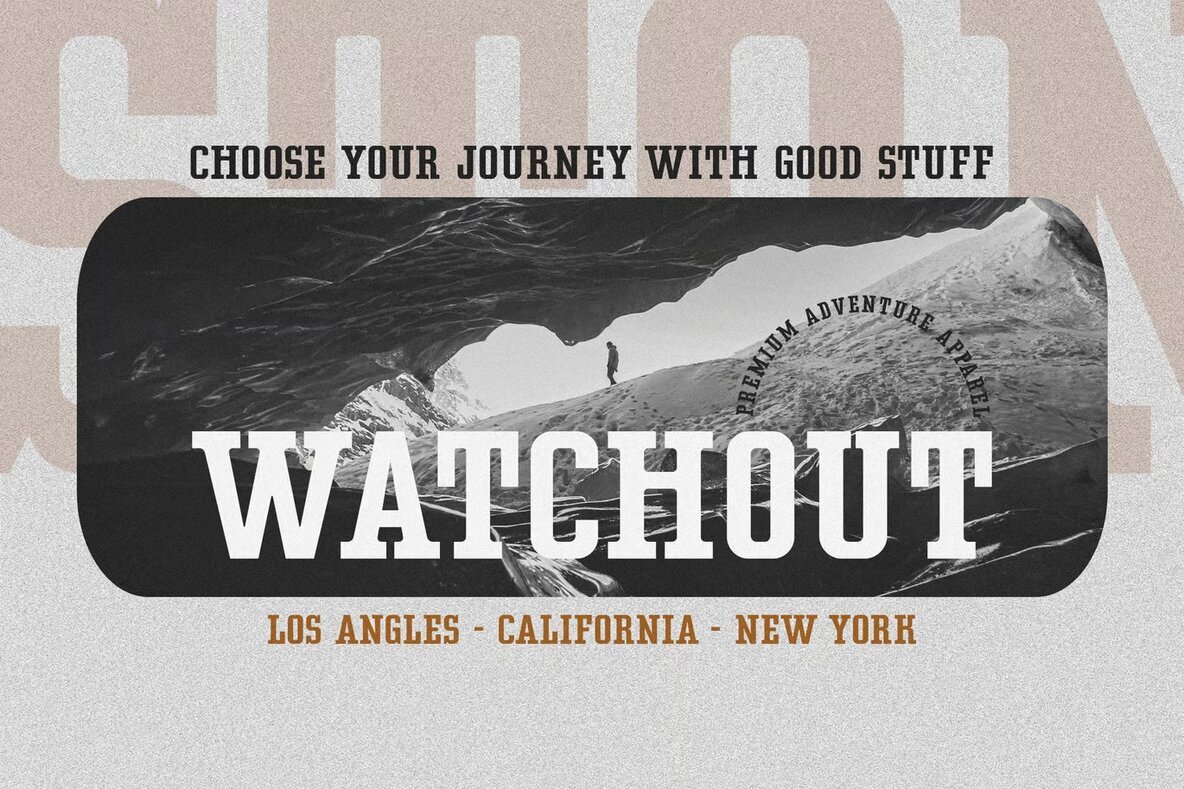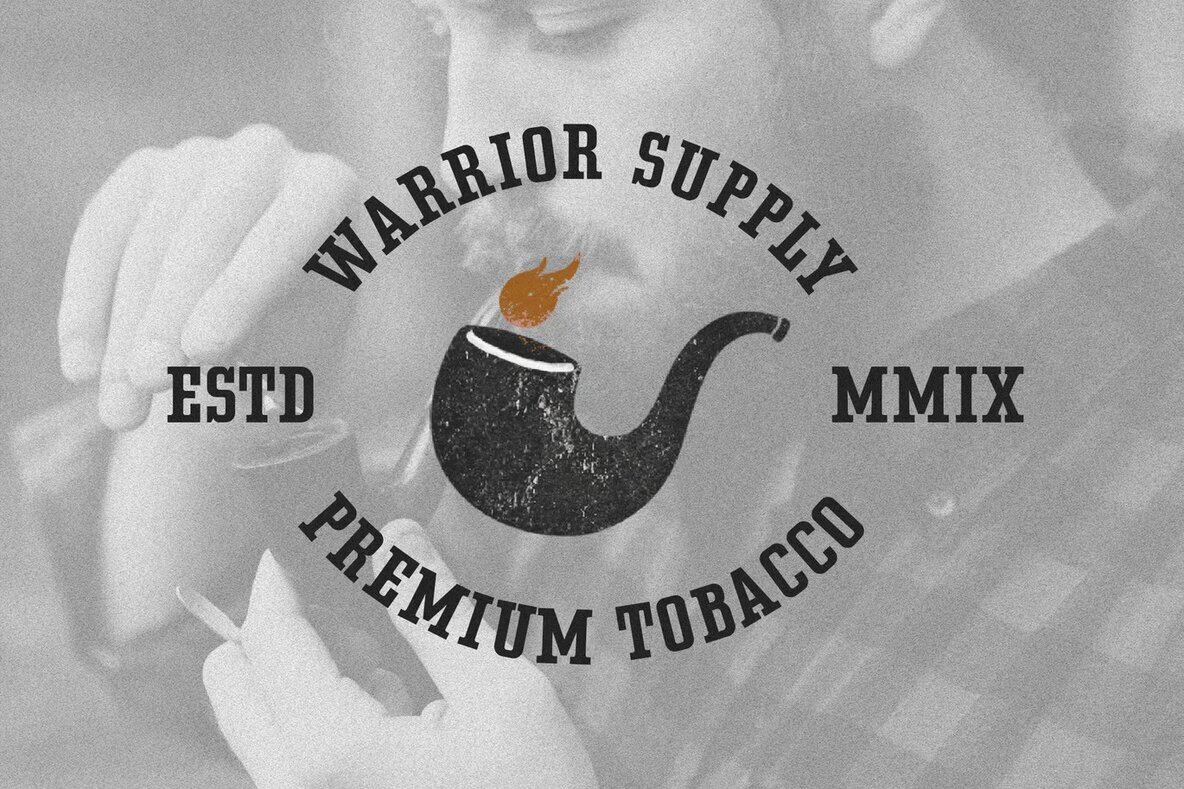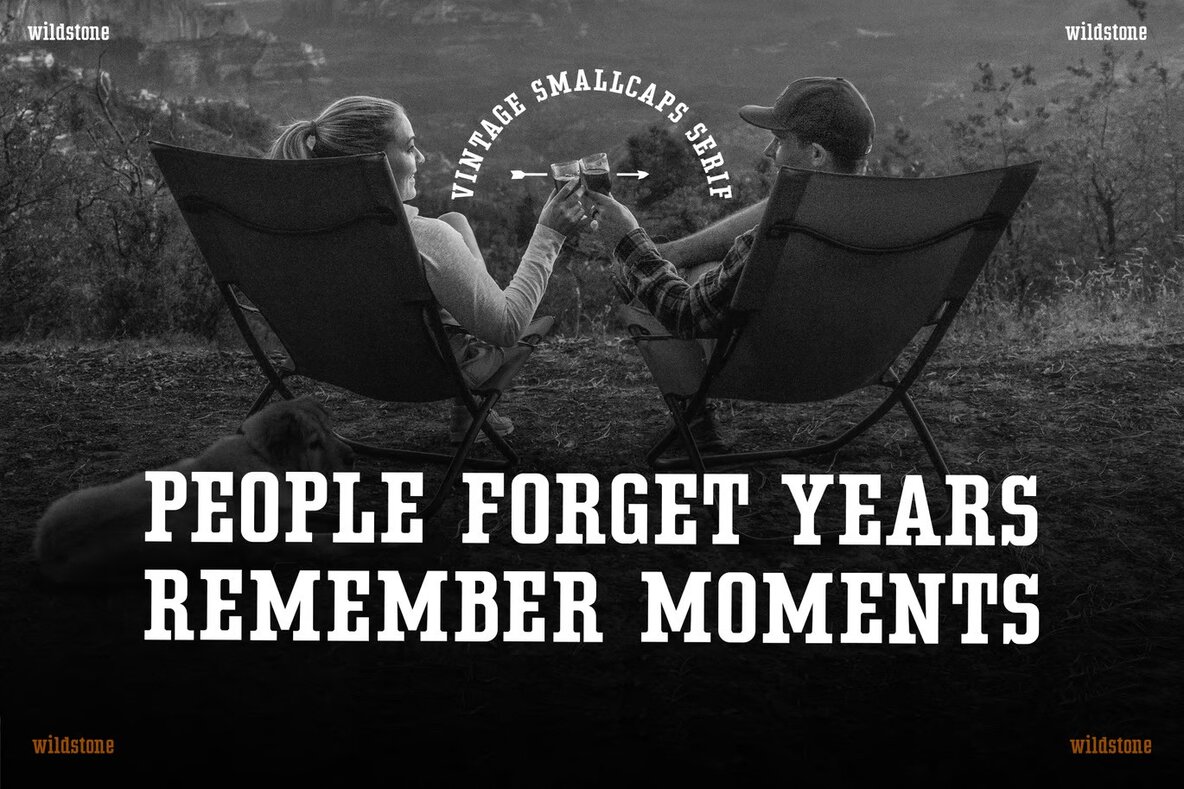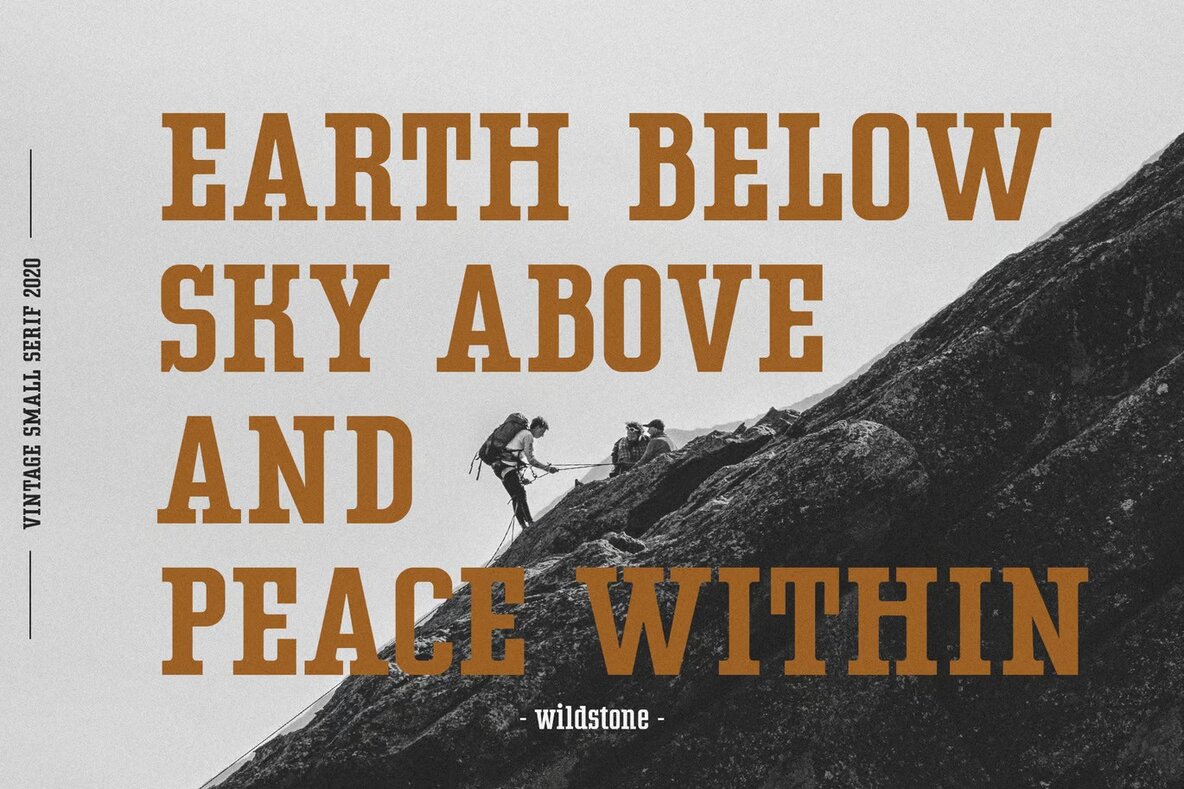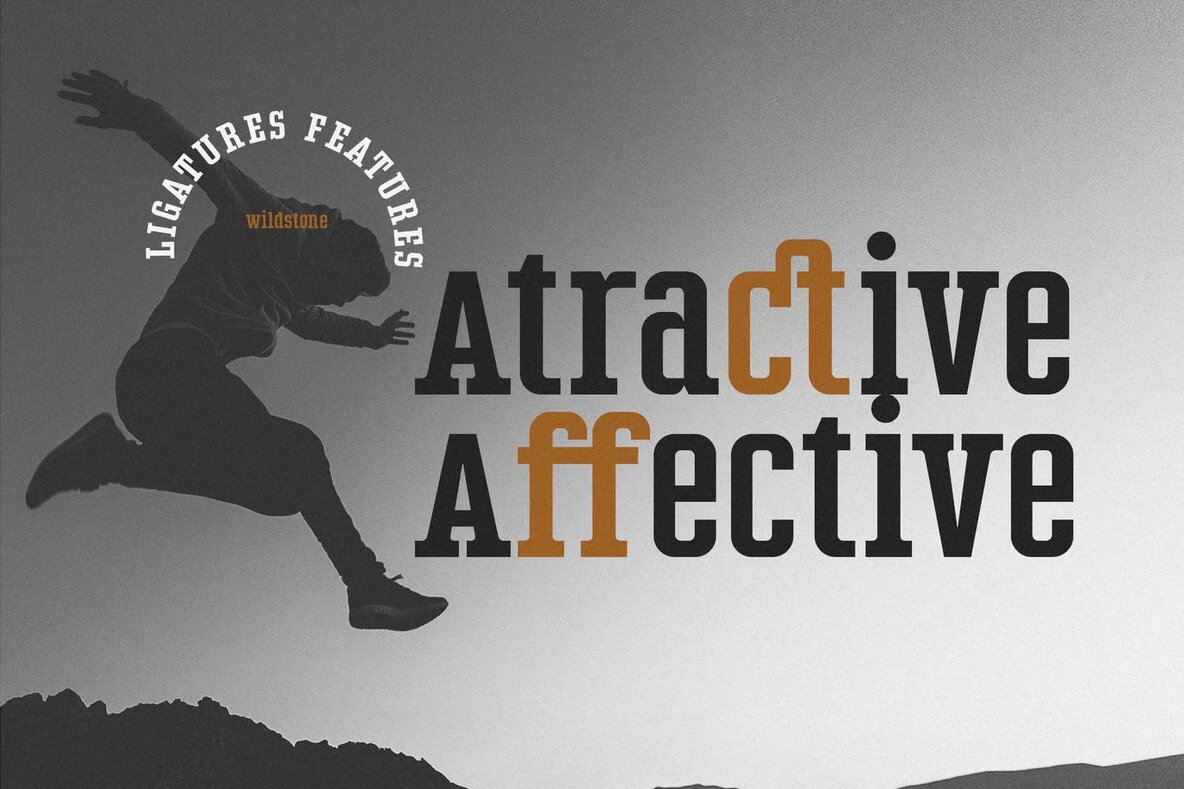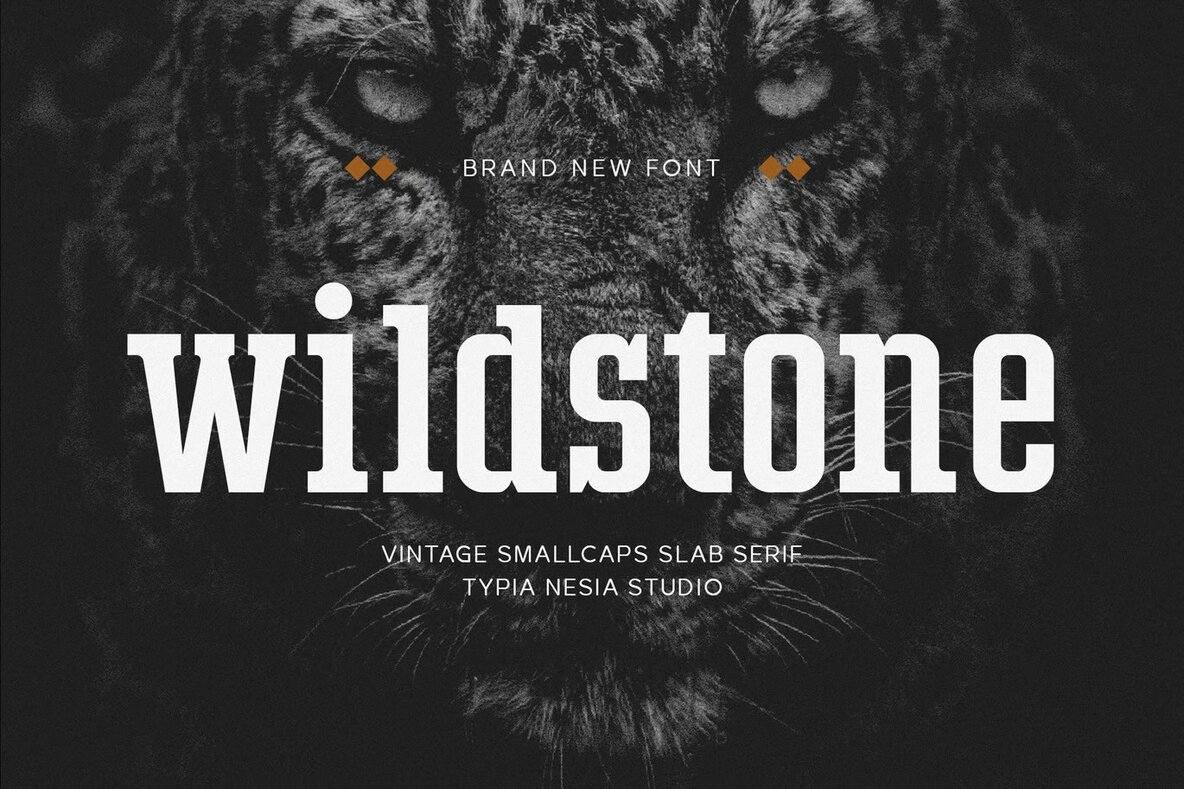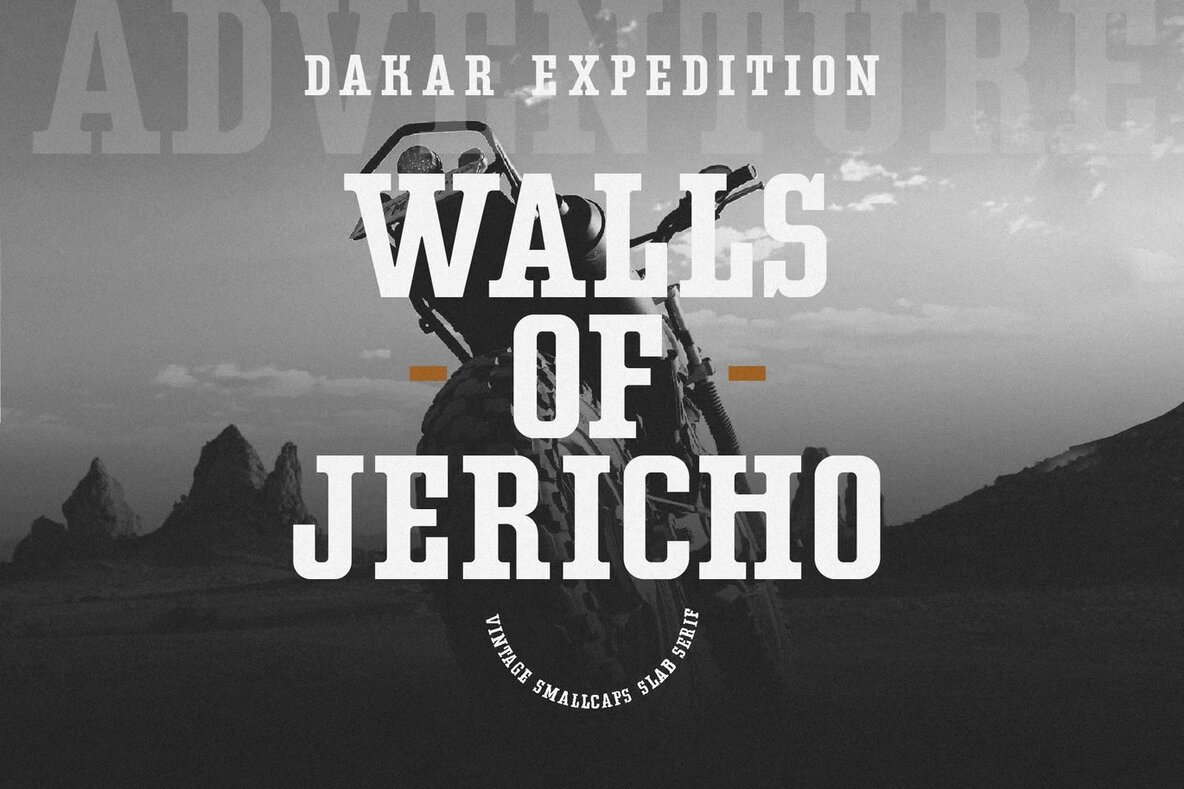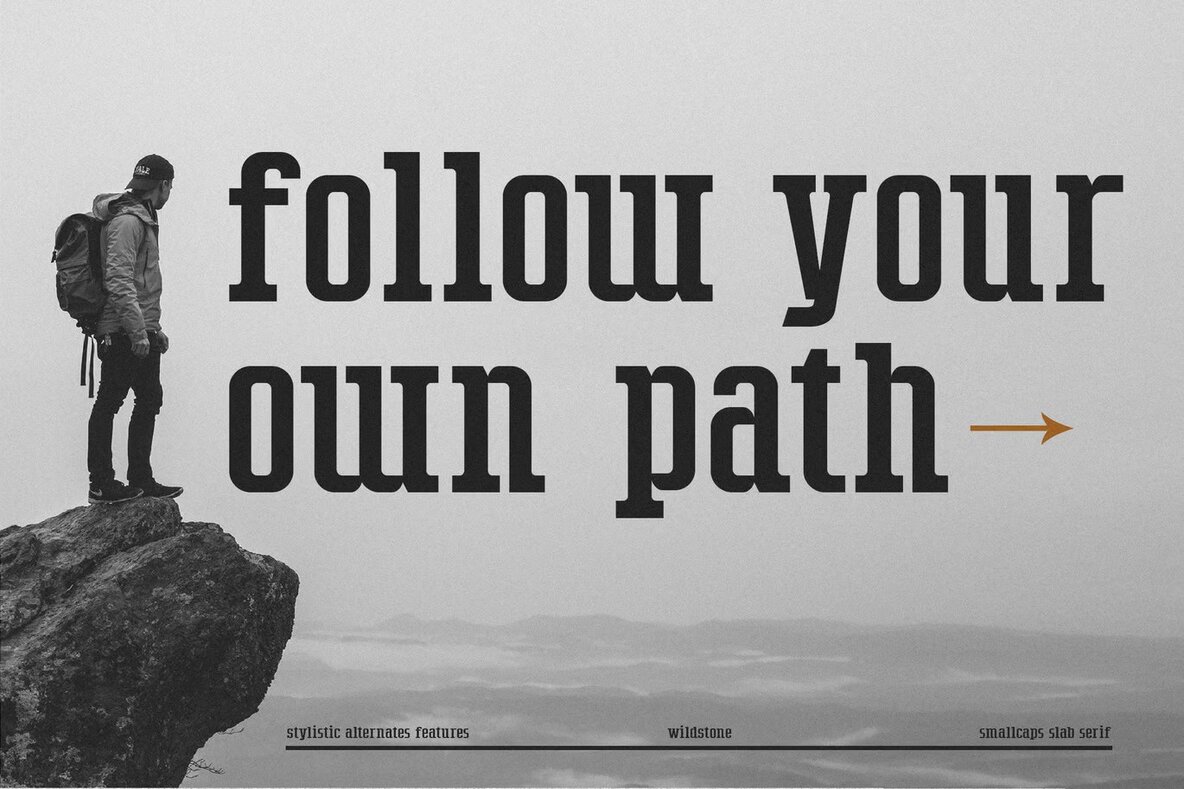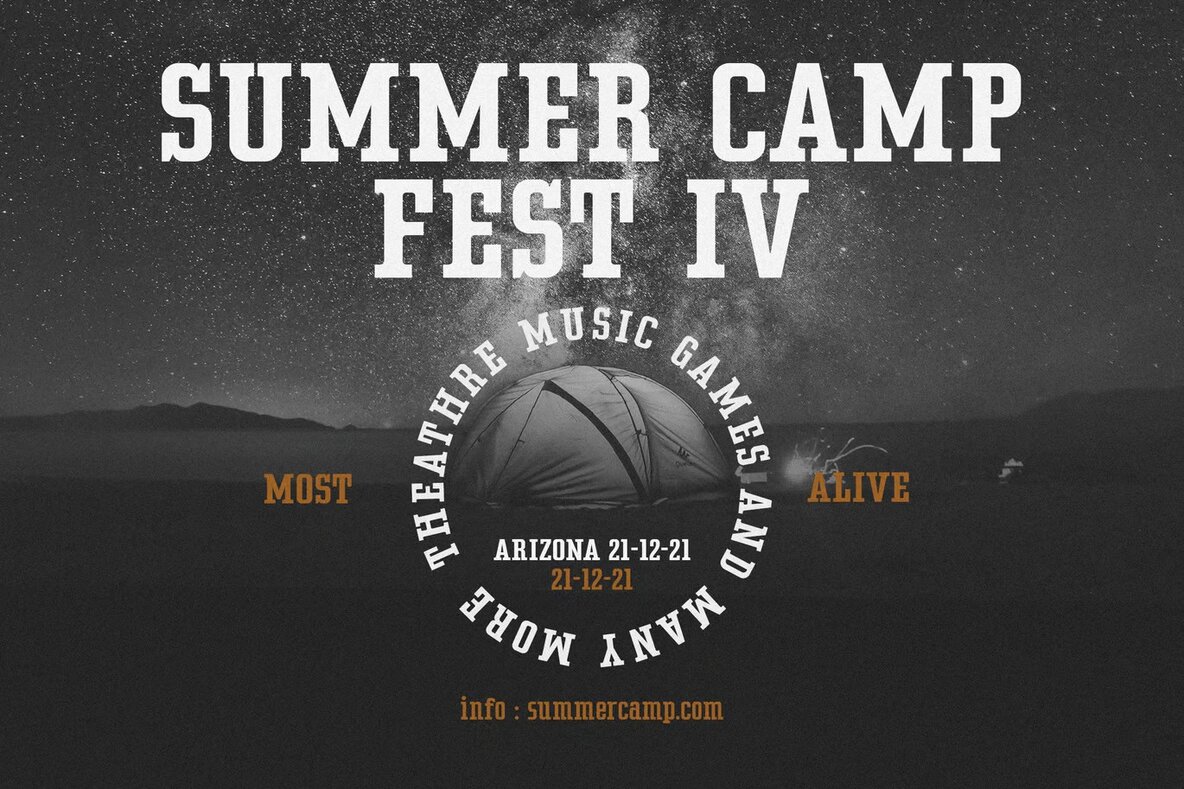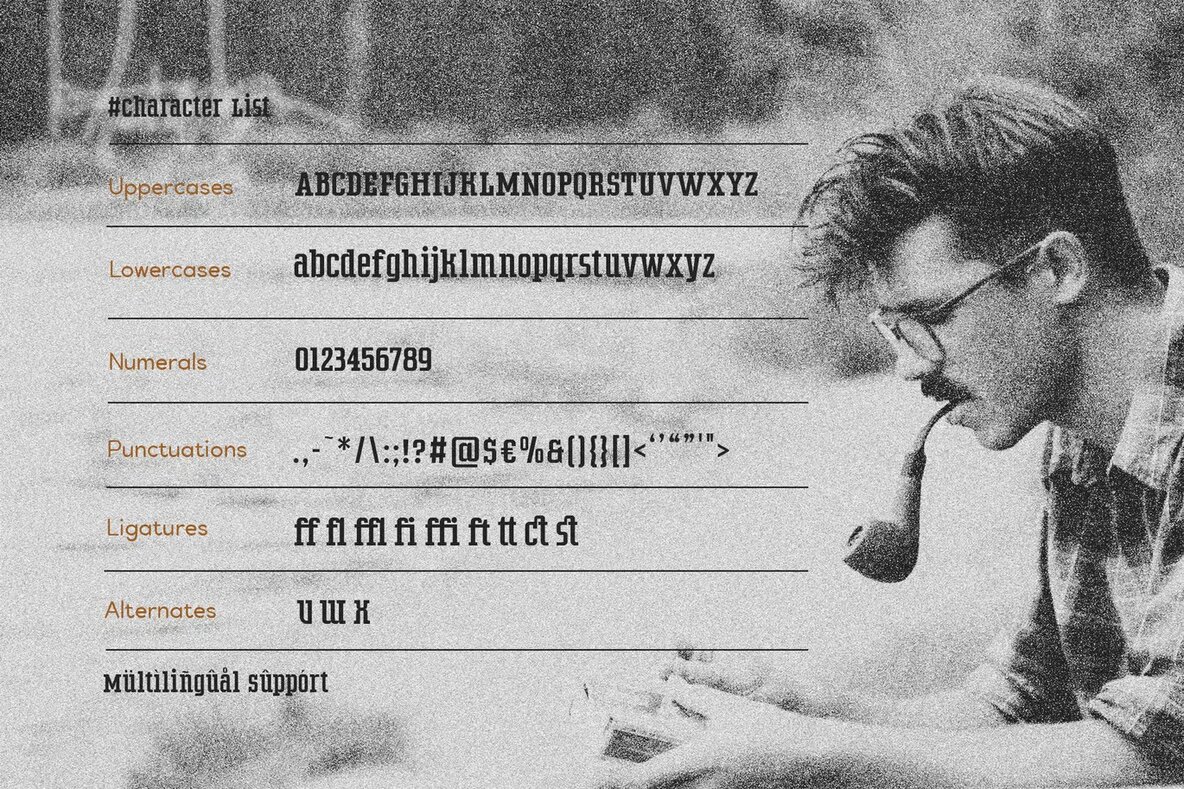
Wildstone Font
Wildstone Regular
Wildstone is a versatile smallcaps display slab serif font that brings a vintage adventure vibe to your designs. It's perfect for logo creation, branding projects, and modern advertising campaigns. Its rugged and distinctive style makes it ideal for themes related to adventure, mountain hiking, and hardcore music. Whether you're working on a vintage garage design, an animation, or a movie project, Wildstone offers a unique touch that's both nostalgic and bold.
The font's robust structure is suitable for a variety of creative projects such as retro summer poster quotes, book or novel cover titles, and editorial designs. Its adaptability extends to digital platforms like websites and blogs, as well as printed materials like cards. Wildstone's distinctive aesthetic ensures that your visuals stand out, delivering a compelling message that resonates with your audience.